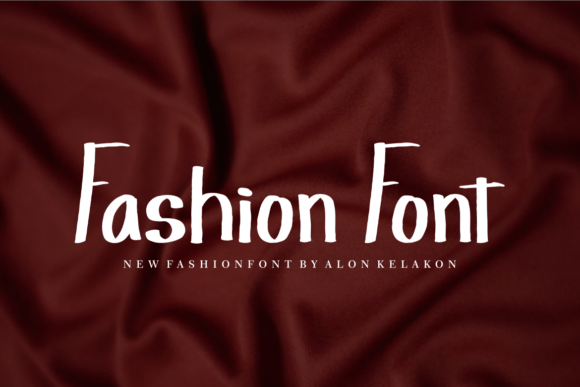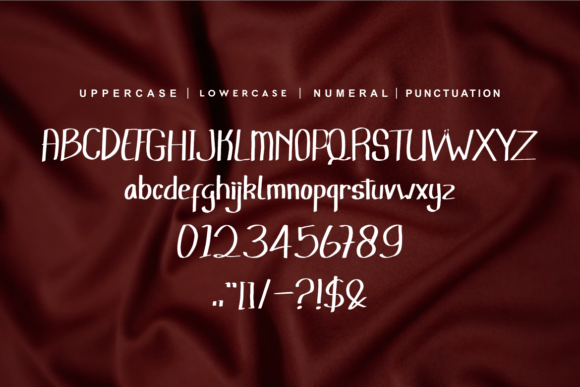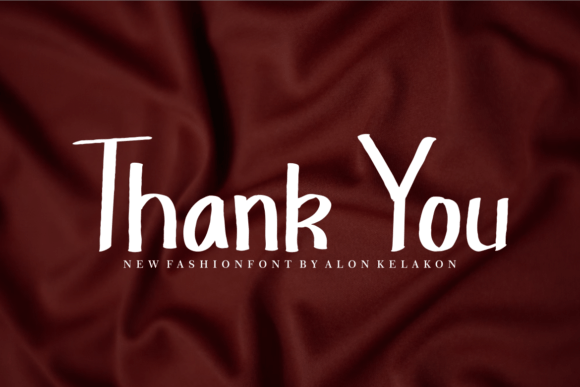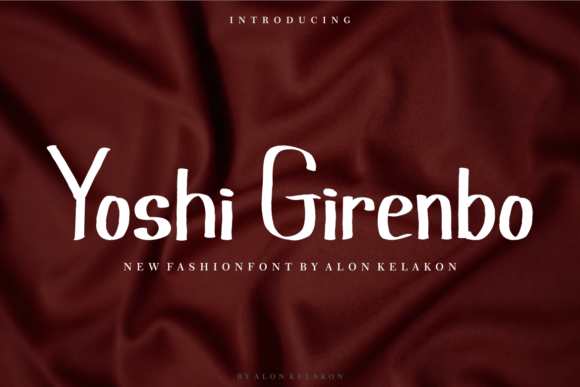
Yoshi Girenbo Font
About Yoshi Girenbo Font
“Yoshi Girenbo” is more than just a font; it’s a modern handwritten script designed to bring a natural, stylish, and personalized feel to your extraordinary projects. This versatile typeface is crafted to look effortlessly natural while maintaining a stylish aesthetic. Whether you’re working on wedding invitations, thank-you cards, quotes, greeting cards, logos, business cards, or any design that requires a customized touch, “Yoshi Girenbo” stands out as a font that adds a distinctive and handcrafted quality.
The modern handwritten script style of “Yoshi Girenbo” is characterized by its contemporary appearance, making it a suitable choice for a wide range of design applications. The natural strokes and fluidity of the characters contribute to a stylish and authentic look, ensuring that it complements various creative projects.
The versatility of “Yoshi Girenbo” shines through in its adaptability to different design contexts. Whether you’re creating digital designs, print materials, or branding elements, this font seamlessly integrates into various projects, bringing a customized and handcrafted touch to each design.
The personalized feel of “Yoshi Girenbo” makes it particularly valuable for projects that demand a distinct and human touch. Whether used in quotes, logos, or any other creative application, this font adds a layer of authenticity, making the text feel uniquely crafted.
In summary, “Yoshi Girenbo” is more than just a font; it’s a modern handwritten script that effortlessly combines a natural, stylish feel with a personalized touch. Embrace its versatility for a wide range of projects, confident that “Yoshi Girenbo” will elevate your designs with its contemporary aesthetic and handcrafted charm. Let it be the font that brings a distinctive and personalized feel to your extraordinary projects.